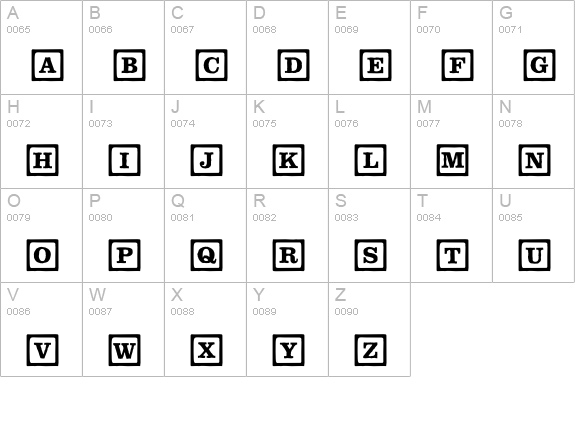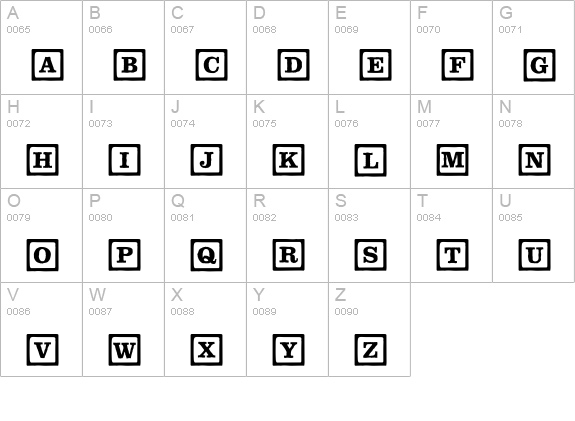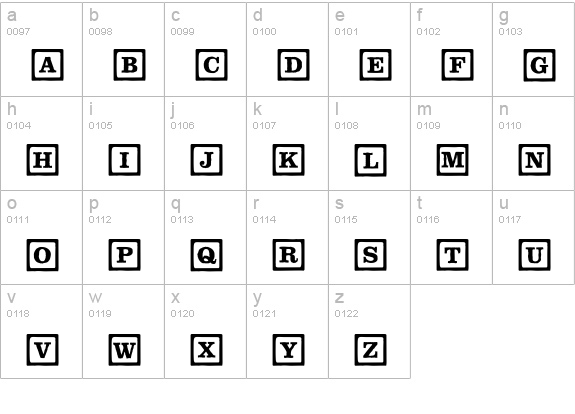
ChildsPlayBlocksLine Font Details
ChildsPlayBlocksLine font is a whimsical and playful typeface that brings a sense of fun and creativity to any design project. With its blocky shapes and cheerful appearance, this font is perfect for capturing the imagination of children and adding a touch of lightheartedness to your work. What's even better is that ChildsPlayBlocksLine font is completely free to download at FontsMarket.com! Whether you're working on a school project, children's book, or any other design that needs a touch of playfulness, this font is the perfect choice. So go ahead and add a splash of fun to your next project with ChildsPlayBlocksLine font - it's just a click away!